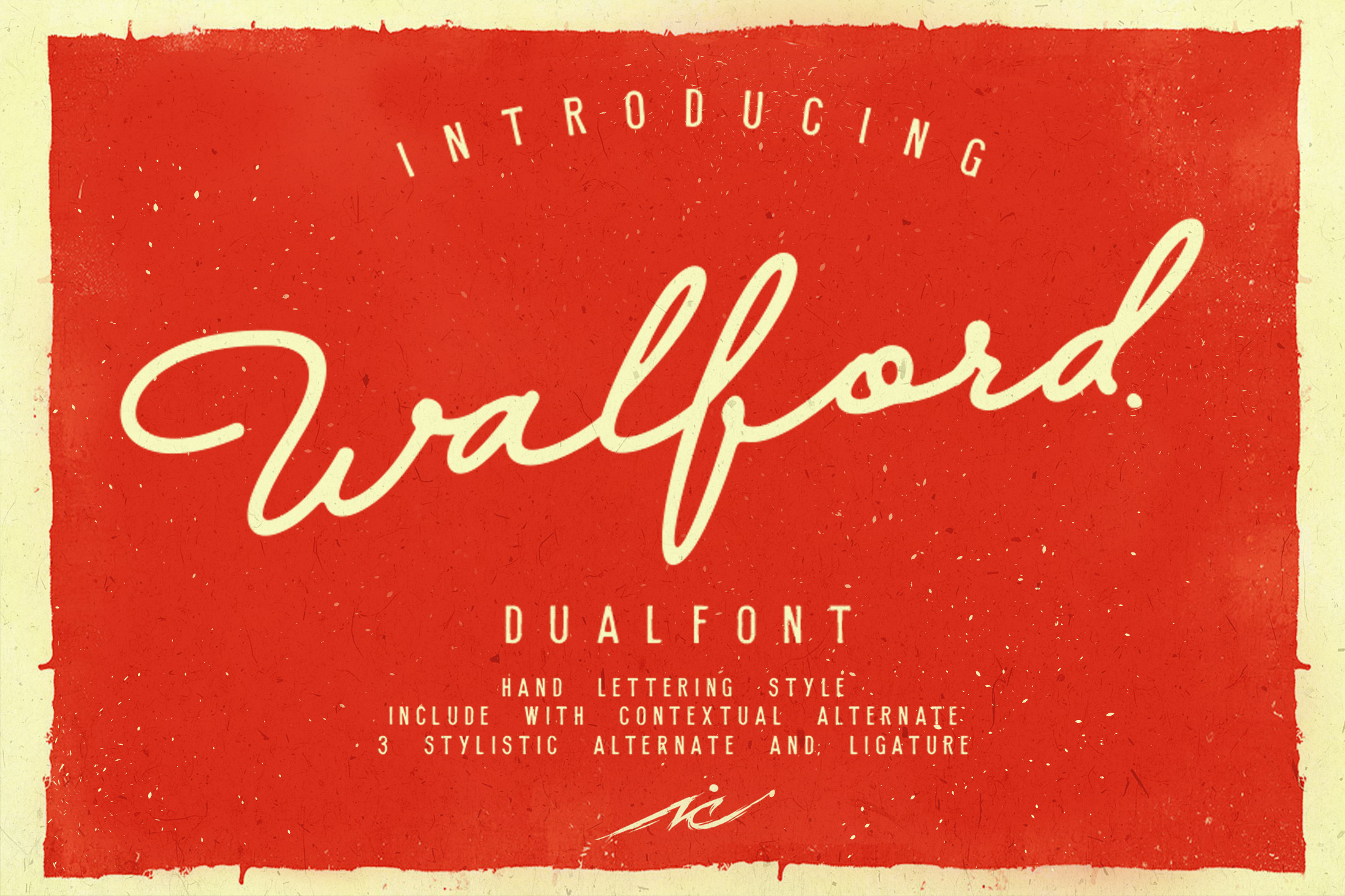
Walford Dual Font
KIDCOOL PRESENT
Walford is a type of handlettering font made with several advantages that can add different nuances to your work, this font is suitable for wedding cards, logos, logotypes, letters, covers etc.
WALFORD FONT FEATURE
- Numeral
- Functional
- Stylishtic set 1 a - z
- Stylishtic set 2 a - z
- Stylishtic set 3 a - z
HIGHFORD FONT FEATURE
- UPPERCASE
- NUMERAL
- FUNCTIONAL